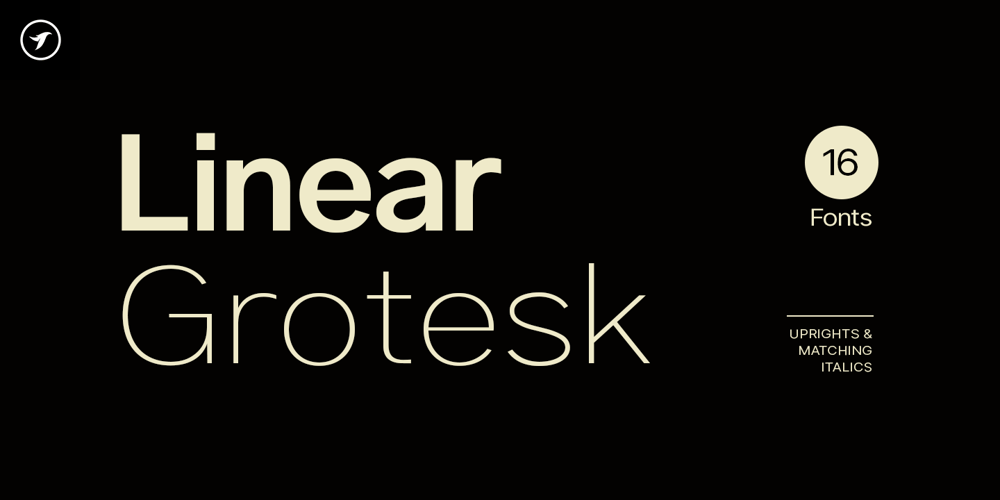
Linear Grotesk Font Family was designed by Jean Johnson and published by Designova. Linear Grotesk contains 16 styles and family package options. ABOUT THE TYPEFACE:A classic sans-serif typeface made with aesthetic perfection and the highest readability, Linear Grotesk is your finest choice for remarkable textual presentations. Created with a special focus on perfection and simplicity in typography, this typeface can transform your design projects to another level of visual appeal.FEATURES:Linear Grotesk is a perfect choice for graphic design, text presentation, web design, print, and display use. The typeface can be an amazing option for beautiful branding, logo/logotype design projects, marketing graphics, banners, posters, signage, corporate identities as well as editorial design. Adding extra letter-spacing for the upright capital letters will make this font perfect for minimal headlines and logotypes as shown in promo images here.320 GLYPHS INCLUDED:Handcrafted and designed with powerful OpenType features in mind, each weight includes extended language support with Western European, Central European, and South Eastern European sets. A total of 320 glyphs are available.EXTENSIVE LANGUAGE SUPPORT:Afrikaans • Albanian • Asu • Basque • Bemba • Bena • Bosnian • Catalan • Cebuano • Chiga • Colognian • Cornish • Corsican • Croatian • Czech • Danish • English • Estonian • Faroese • Filipino • Finnish • French • Friulian • Galician • German • Gusii • Hungarian • Icelandic • Ido • Indonesian • Interlingua • Interlingue • Irish • Italian • Javanese • Jju • Kabuverdianu • Kalaallisut • Kalenjin • Kinyarwanda • Kurdish • Latvian • Ligurian • Lithuanian • Lojban • Lombard • Low German • Lower Sorbian • Luo • Luxembourgish • Luyia • Machame • Makhuwa • Makhuwa-Meetto • Makonde • Malagasy • Malay • Maltese • Manx • Māori • Morisyen • North Ndebele • Northern Sotho • Norwegian Bokmål • Norwegian Nynorsk • Nyanja • Nyankole • Occitan • Oromo • Polish • Portuguese • Rejang • Romanian • Romansh • Rombo • Rundi • Rwa • Samburu • Sango • Sangu • Sardinian • Scottish Gaelic • Sena • Shambala • Shona • Slovak • Slovenian • Soga • Somali • South Ndebele • Southern Sotho • Spanish • Sundanese • Swahili • Swati • Swedish • Swiss German • Taita • Taroko • Teso • Tsonga • Tswana • Turkmen • Upper Sorbian • Vunjo • Walloon • Welsh • Wolastoqey • Xhosa • Zhuang • ZuluScripts: Latin